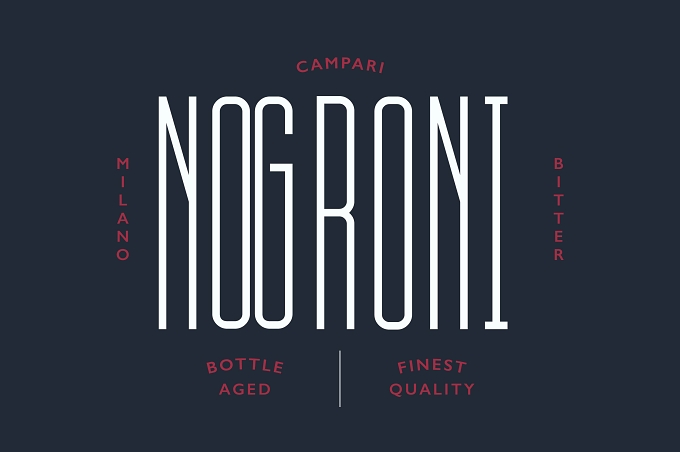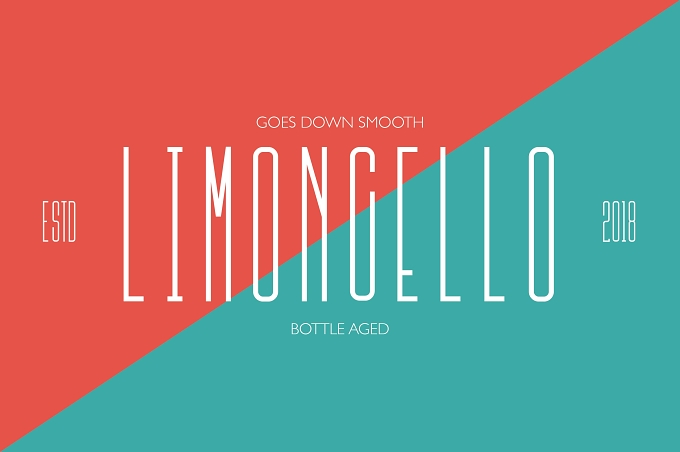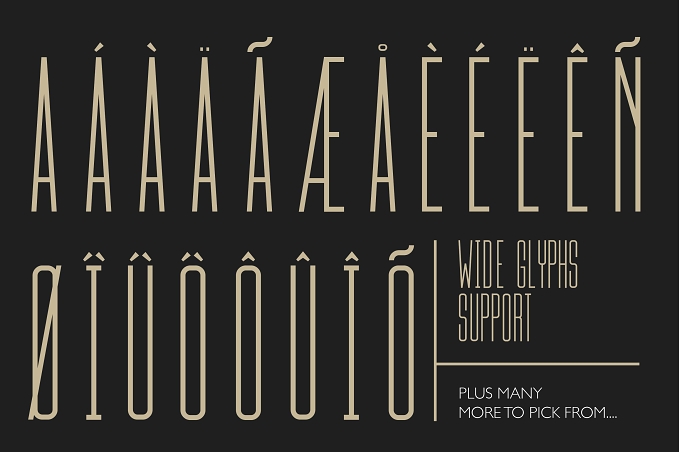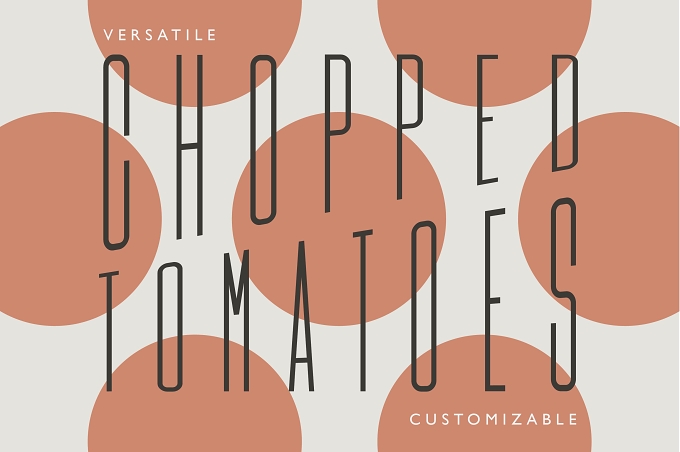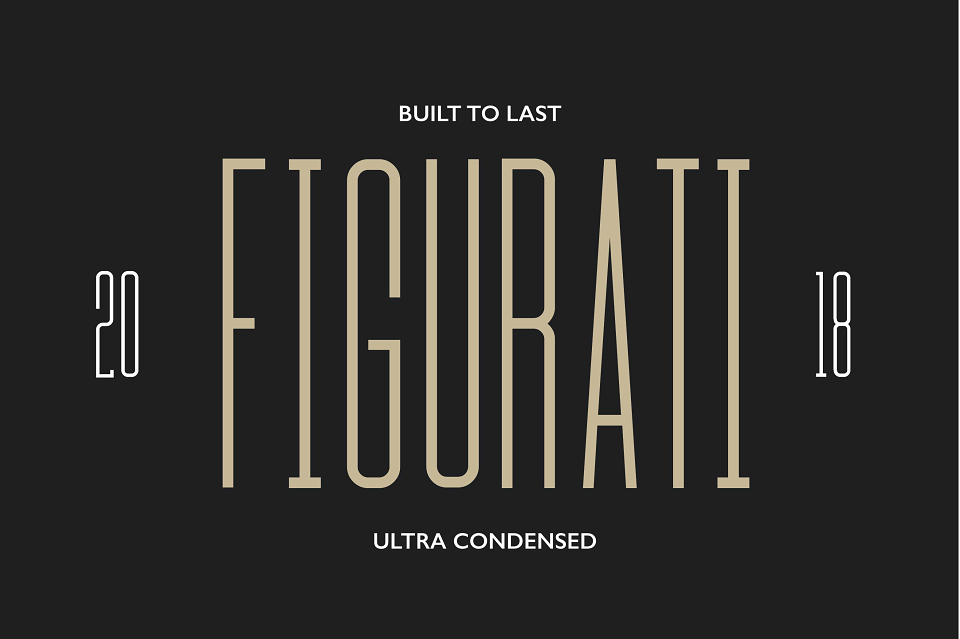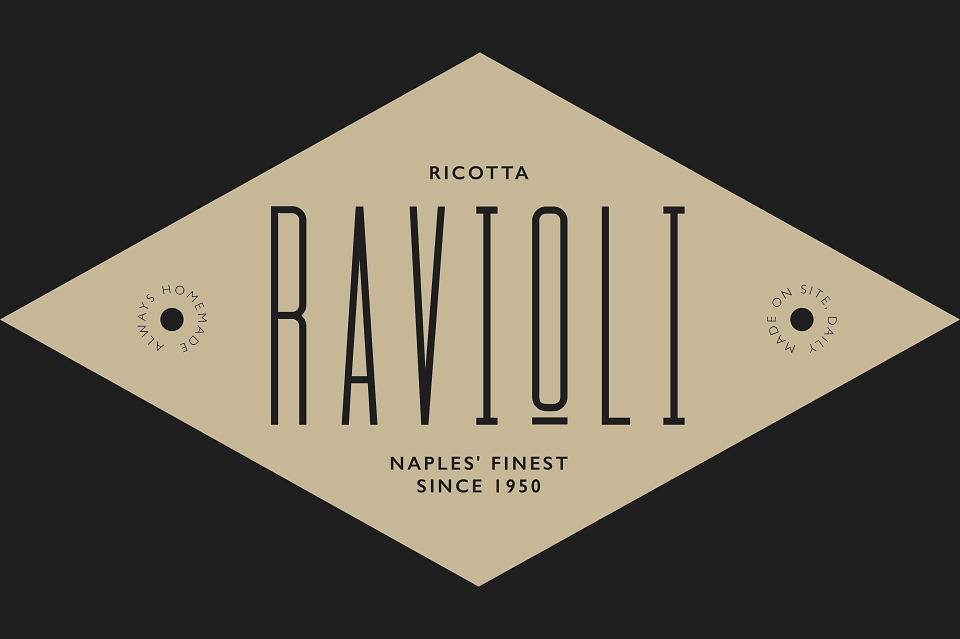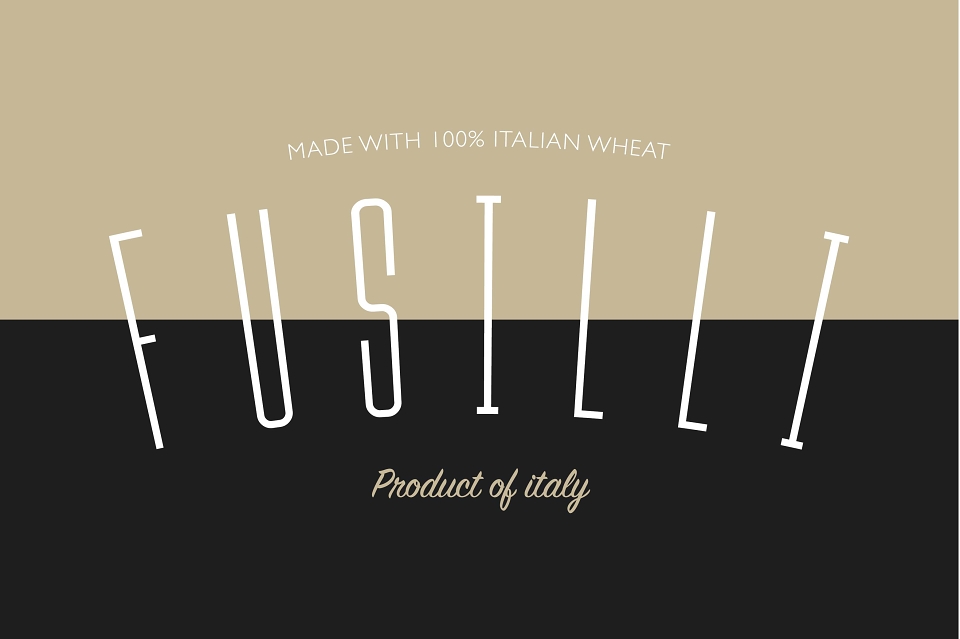
Introducing Figurati - A Condensed Typeface with fine Italian charm!
Figurati is a classic typeface, oozing with class and is built strong and made to last. This font is ideal for branding and creating bold and strong logos for any client - This font is a must have for any branding project!
Figurati has many stylistic alternatives which can be found in the glyphs panel along with many other glyphs, which support different languages also. The alternatives may not show up on the 'Alternatives for selection', but they will show up within the main glyphs panel for sure!
Figurati is a versatile sans serif typeface that gives a classic aesthetic. With it's unique & distinct characteristics it sets itself apart, while maintaining a strong timeless feel.
Figurati - Condensed Typeface